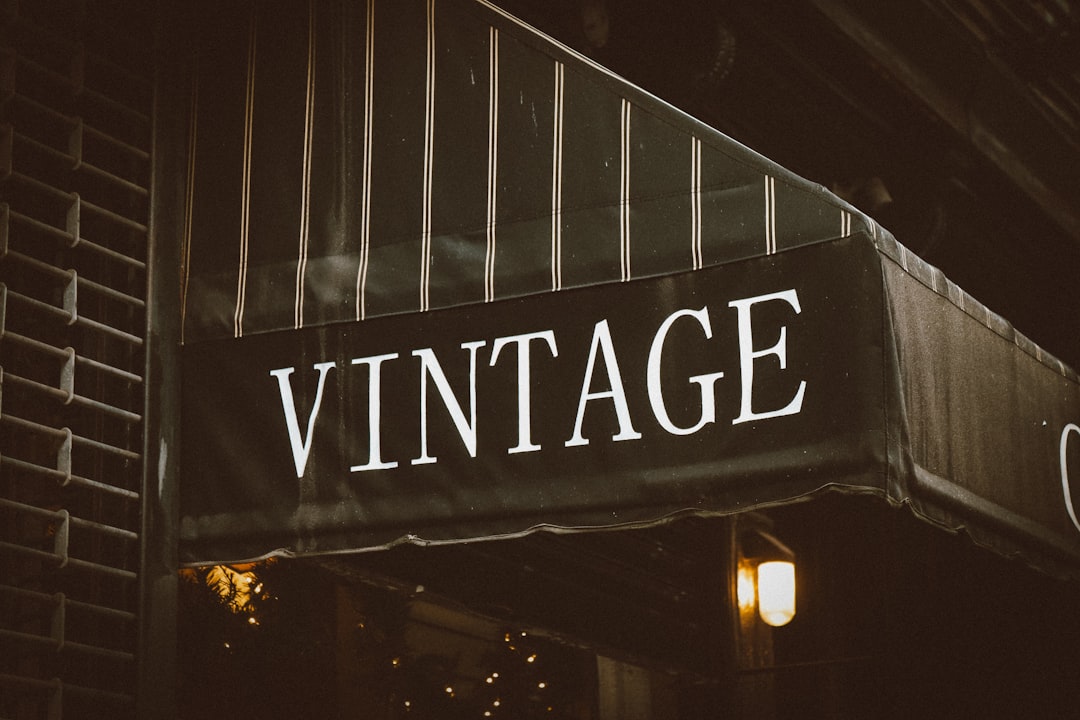
Vintage fonts carry the warmth and craft of design from roughly the 1890s through the mid-20th century: hand-painted shop signs, letterpress posters, art deco theaters, old typewriters and classic packaging. The best vintage fonts capture that nostalgia for logos, labels, menus, wedding suites and editorial design. The key to using them is authenticity of era, pairing a period-appropriate display face with a complementary body font so the whole design feels of its time rather than costume-y.
What makes a good vintage font?
A genuine vintage font reflects the production methods of its era: the slight ink-spread roundness of letterpress, the brush logic of sign painting, the high contrast of Victorian and art deco display, or the mechanical evenness of a typewriter. Look for characterful details, such as ball terminals, generous curves, or subtle imperfections, balanced with enough structure to remain readable. The most useful vintage fonts evoke a specific decade, which helps you match them to the right project rather than producing a vague “old” look.
Best vintage fonts
These ten span the 1890s to the 1950s, from elegant serifs to chunky display and typewriter styles. Licensing and source are noted for each.
1. Cooper Black
Designed in 1922, Cooper Black is the definitive friendly vintage display face, with soft, heavy serifs and rounded terminals seen on countless 1970s reissues and album covers. It radiates warmth and confidence at large sizes. The original is a paid typeface; for a free, broadly similar feel, Google Fonts offers the related Cooper Hewitt sans and chunky alternatives.
2. Playfair Display
Playfair Display is a high-contrast transitional serif modeled on 18th- and 19th-century types, giving an elegant, editorial Victorian air. It excels as a headline and pairs beautifully with a neutral sans body. Free on Google Fonts under the SIL OFL, with multiple weights and italics.
3. Lobster
Lobster is a bold connecting script with the look of mid-century hand-painted signs, complete with contextual alternates that vary letterforms for a more authentic feel. It is a hugely popular choice for vintage logos and labels. Free on Google Fonts.
4. Special Elite
Special Elite recreates a worn manual typewriter, with uneven ink and slightly battered letterforms. It is perfect for distressed, industrial or noir-era designs and looks great on tickets, tags and credits. Free under the SIL OFL on Google Fonts.
5. Abril Fatface
Abril Fatface is a dramatic, high-contrast Didone display face inspired by 19th-century advertising posters. Its bold verticals and hairline serifs command attention in headlines and magazine covers. Free on Google Fonts; pair with a simple serif or sans body.
6. Limelight
Limelight is a geometric art deco display face evoking 1920s and 1930s theater marquees and cinema signage. Its elegant capitals shine in titles and luxury branding. Free under the SIL OFL on Google Fonts.
7. Sail
Sail is an ornate, flourished script with sweeping copperplate-style swashes, ideal for single decorative initials or short elegant words on invitations and vintage packaging. Use it large and sparingly. Free on Google Fonts.
8. Yeseva One
Yeseva One is a decorative high-contrast serif with graceful curves and a warm, old-world charm. It works as a softer alternative to Playfair for headlines and quotes. Free under the SIL OFL on Google Fonts, with Cyrillic support.
9. Pacifico
Pacifico is a fun, rounded brush script inspired by 1950s American surf culture, giving a cheerful retro-vintage feel to logos and labels. Free on Google Fonts; it leans late-vintage, so match it to the right era.
10. Cinzel
Cinzel is a classical serif based on Roman inscriptional capitals, lending a timeless, antique gravitas to logos, certificates and luxury brands. It reaches further back than the 20th century but pairs naturally with vintage palettes. Free under the SIL OFL on Google Fonts.